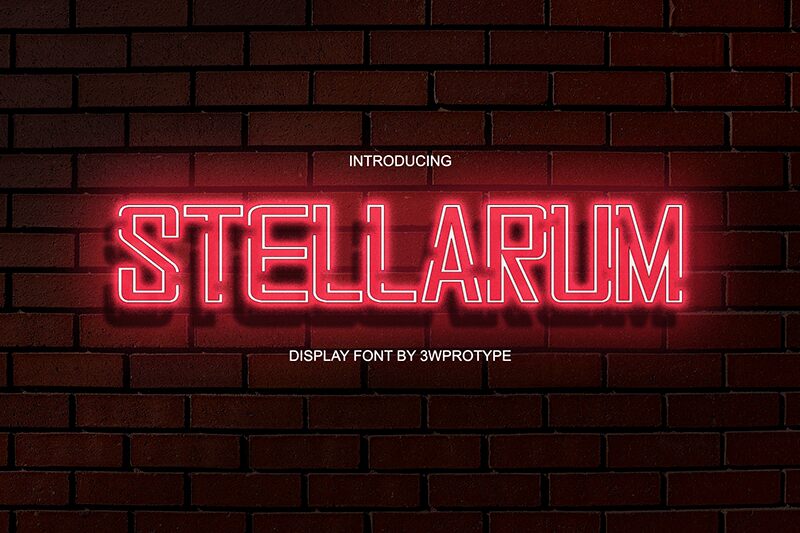
Stellarum font by 3w protype is inspired by shapes, and reads beautifully on any print or digital medium. The font represents some of the typical visual qualities seen in many electronic music scenes, videos, and posters with classic numbers and letters. Urban culture thrives when vibrant colors, brilliant forms, and impactful images combine.
Fresh brand identities can utilize Stellarum as their official font for logo design. Young people will certainly relate and identify with the logo, which will help the company tremendously. Additionally, abstract illustration, covers, music flyers, posters, wall art, digital art, and conceptual artwork can all benefit from it.